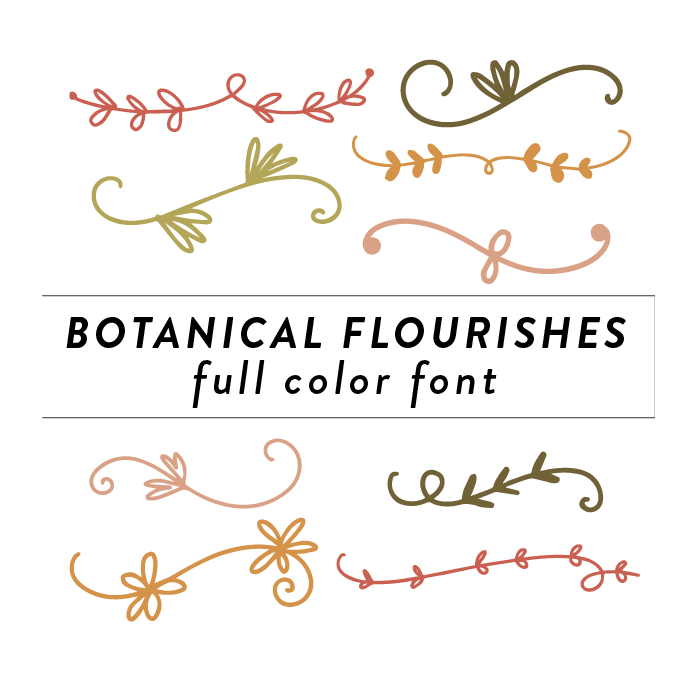
Botanical Flourishes Full Color Font is a unique and intricate font design inspired by nature. It features delicate flourishes, intricate tree branches, and lush leaves in fall inspired colors. This font is perfect for adding a touch of whimsy and elegance to any project related to nature, beauty, or organic products. Its detailed design and vibrant colors make it stand out and add a touch of sophistication to any DIY project.